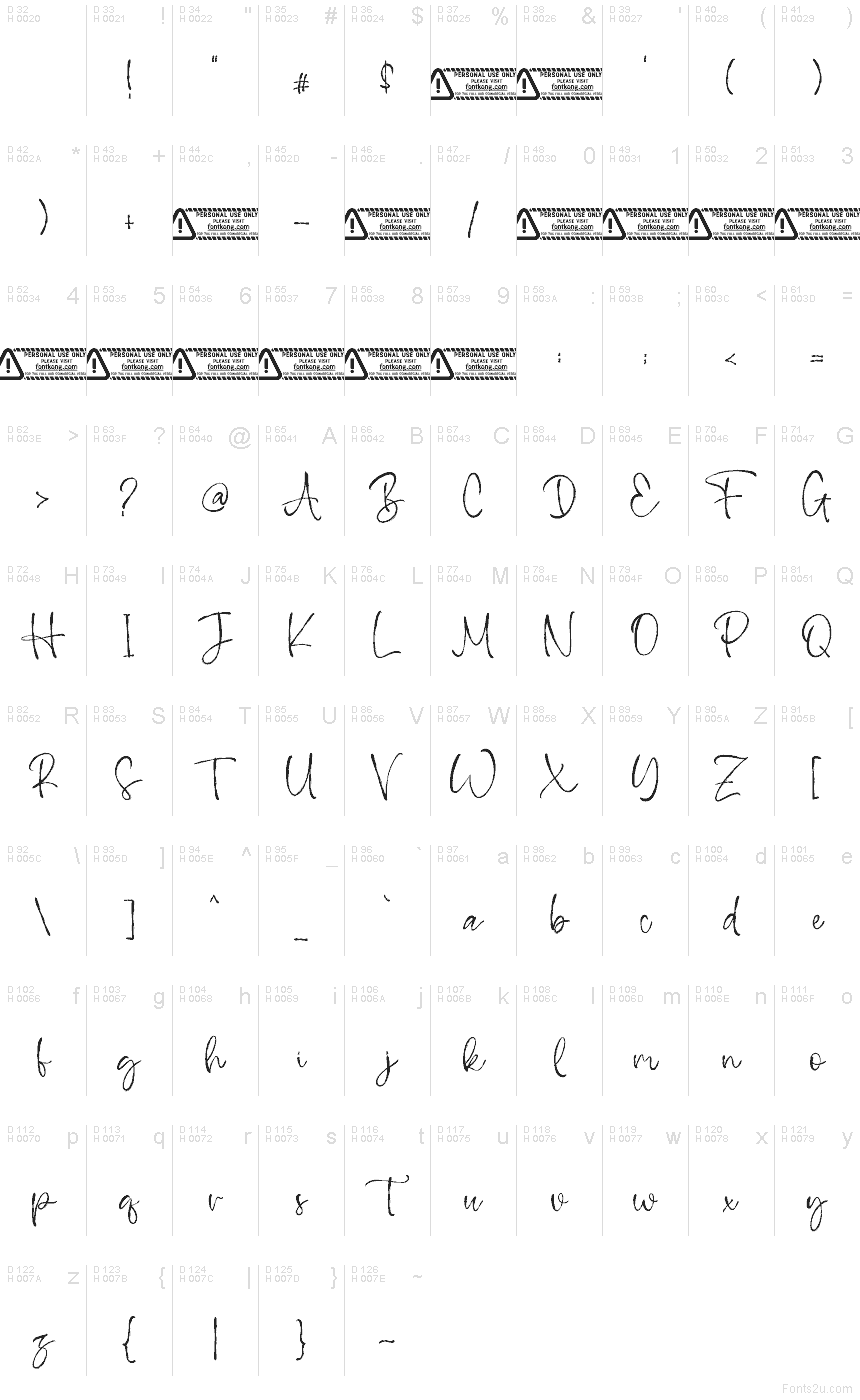
Flanella PERSONAL USE ONLY!
Flanella font is a casual handwritten creation with a signature style by Kong Font inhaling the ideas of elegance, fashion, and class. Romantic yet playful, Flanella displays an artistic flair in each character making it ideal for branding and similar identity projects. It’s a must as a headline text script from which you can create fabulous typographic content.
Flanella is offered to you as a free handwritten font and its possible use cases include signages, magazine titles, logotypes, product package design, packaging labels, poster designs (especially those with black backgrounds), social media content like Instagram posts or YouTube channel banners among many other uses widely left to your creativity.